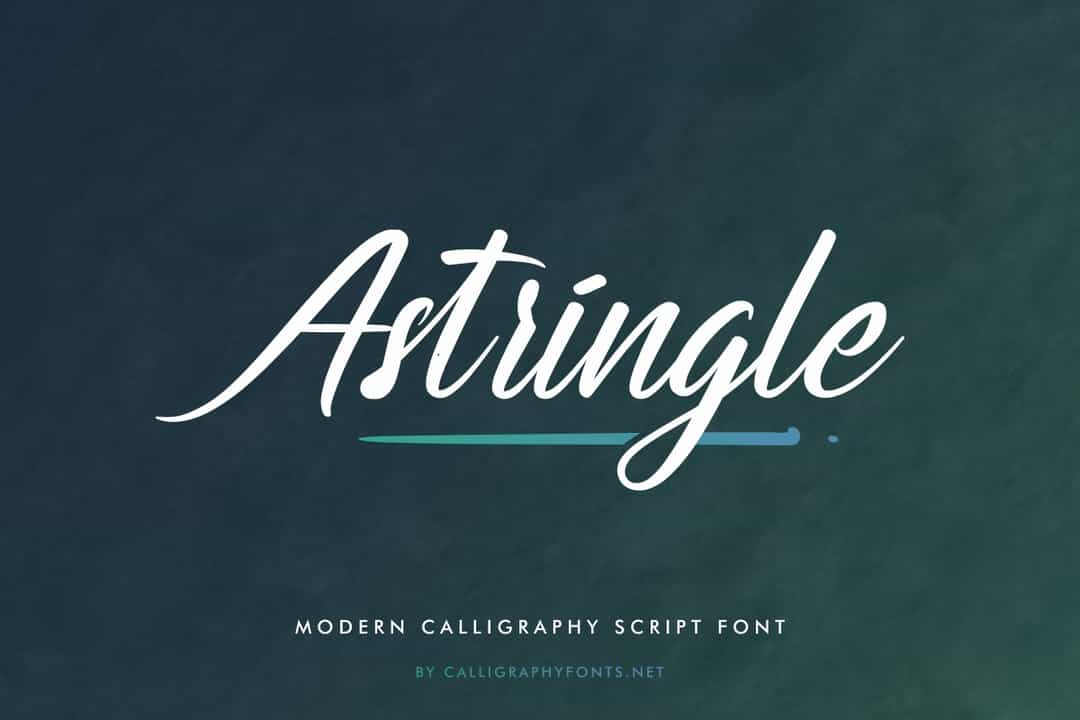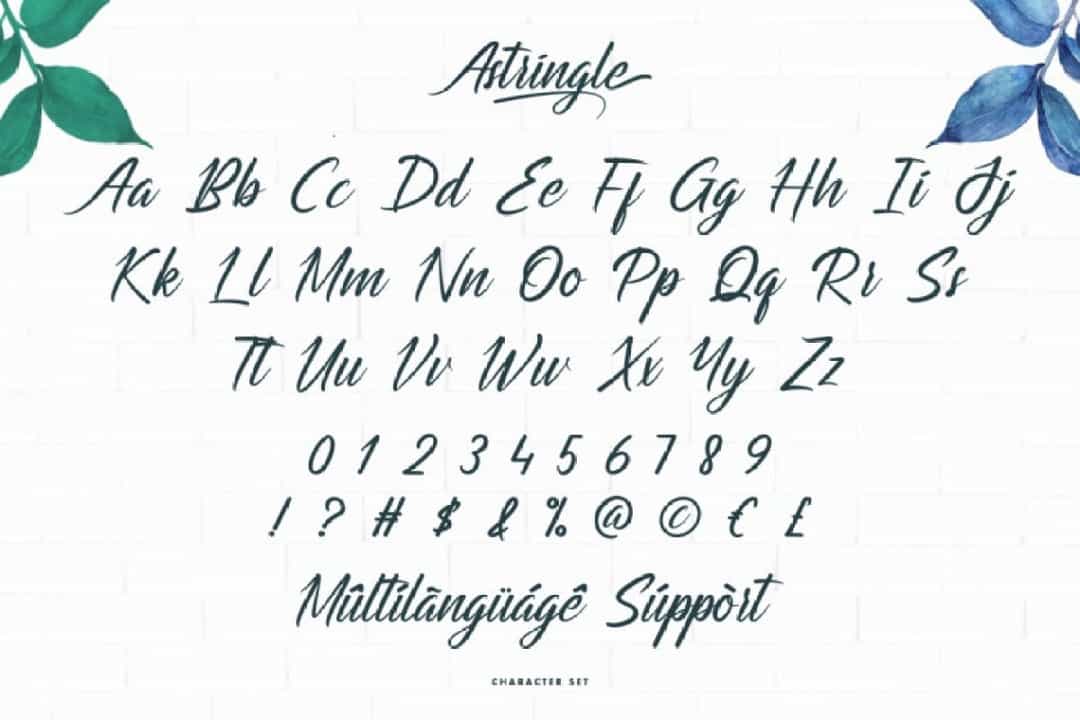
Astringle is a beautiful and contemporary font and is excellent for any invitation, logos or flyers. This beautiful font has elegant writing characteristic as well as has luxurious brush font.